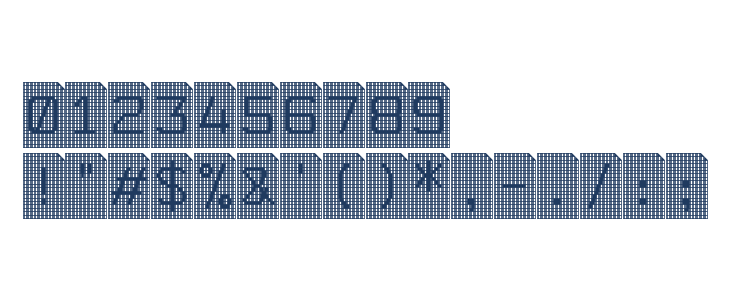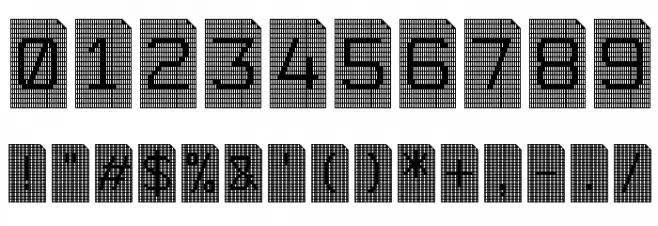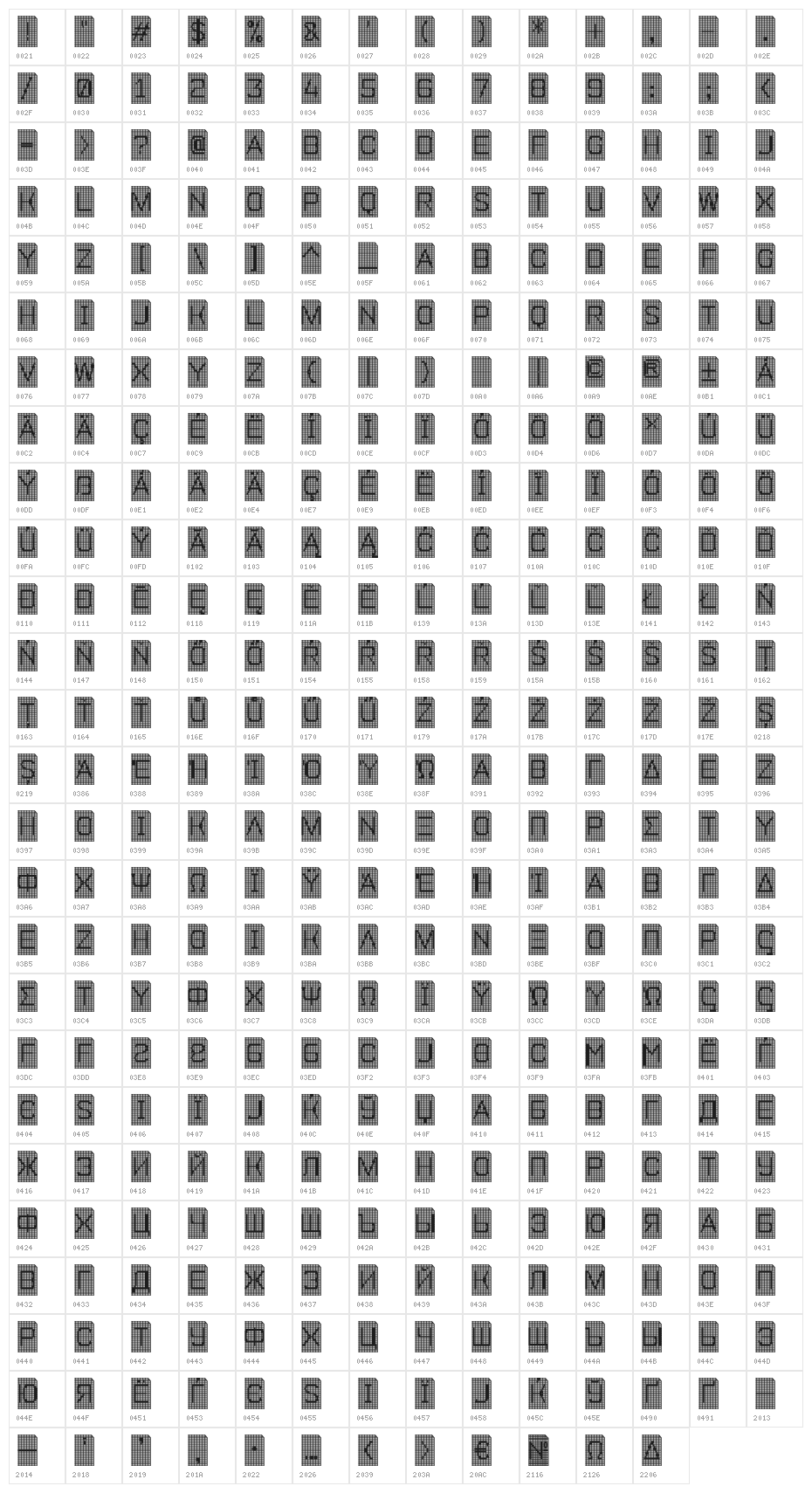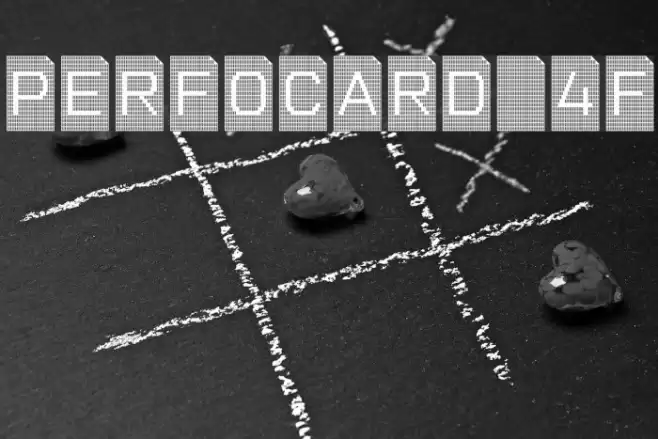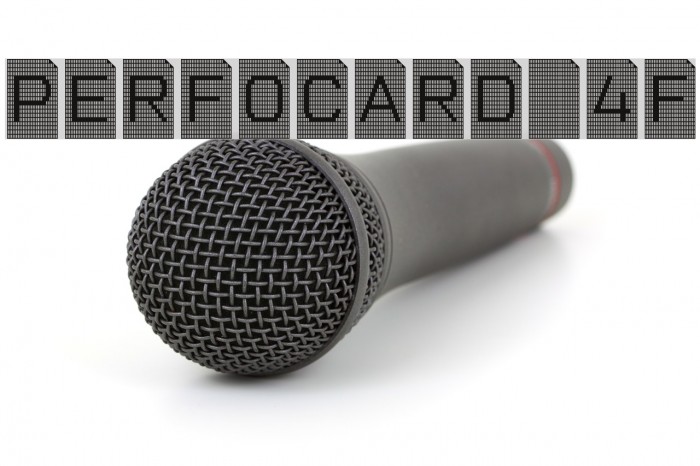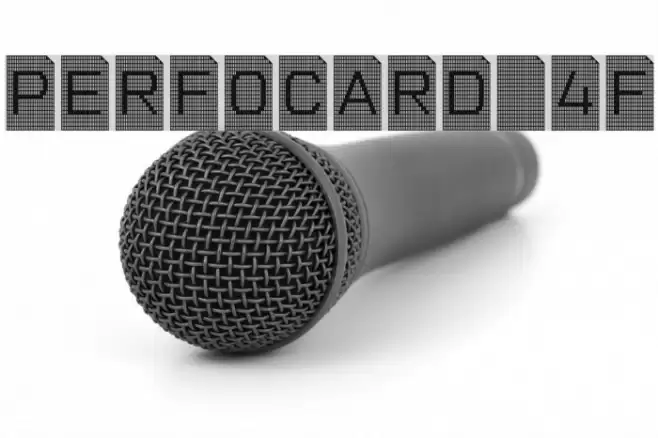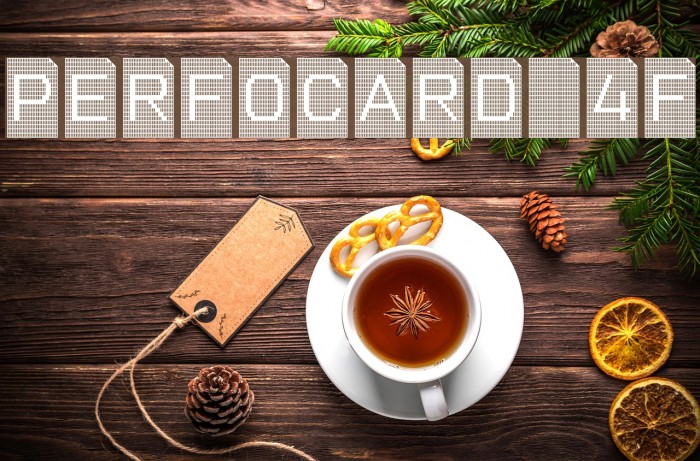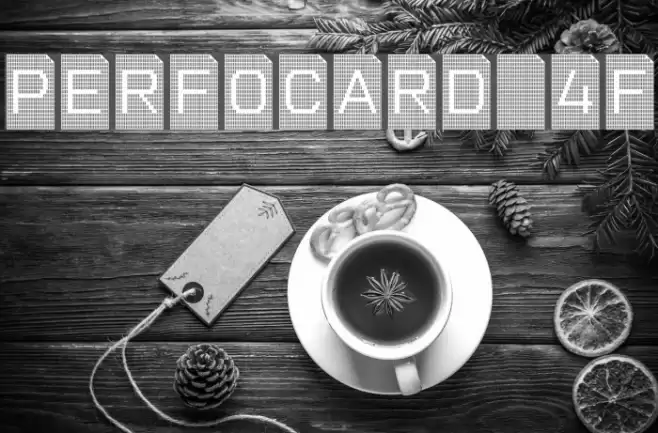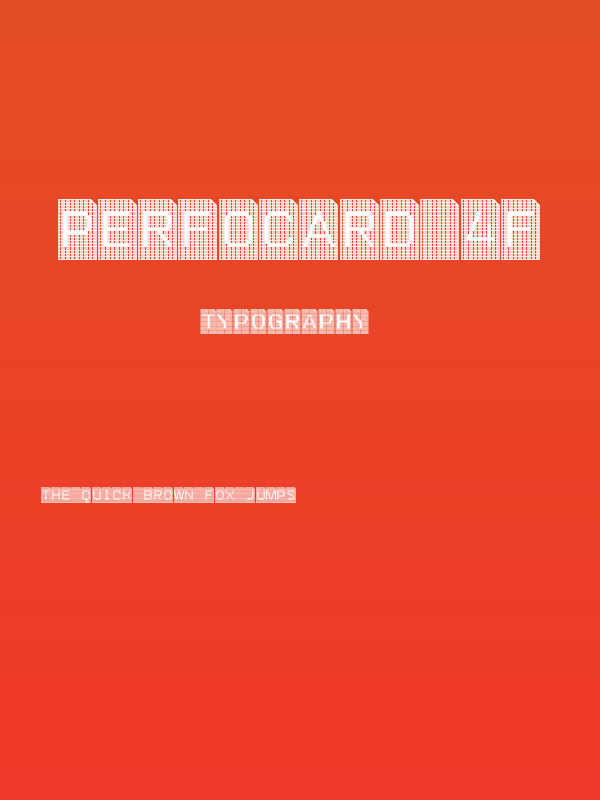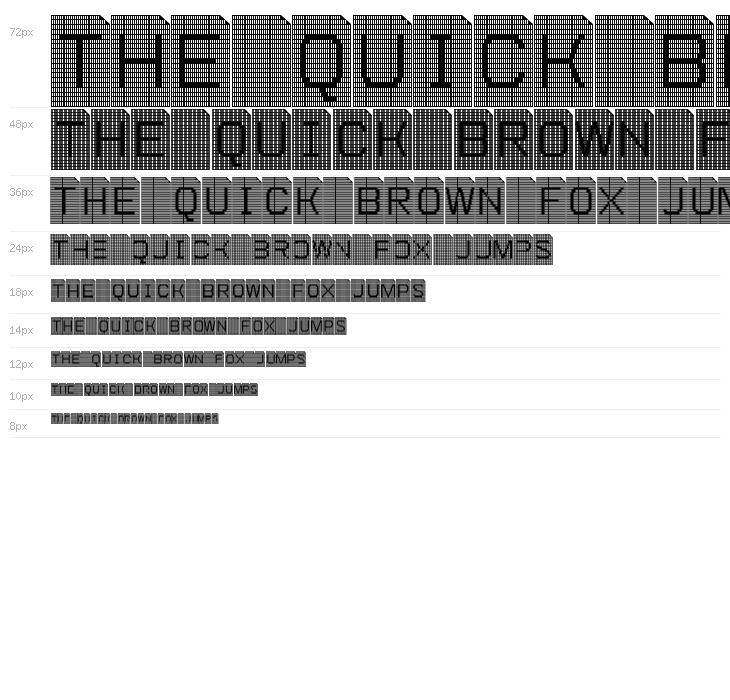
Perfocard 4F Font
Perfocard 4F Description
This font features a unique, grid-like pattern that gives each character a distinct, pixelated appearance. The letters and numbers are constructed from a series of dots arranged in a structured, geometric fashion, creating a three-dimensional effect. The design is reminiscent of early digital displays or punch cards, offering a retro-futuristic aesthetic. The characters are bold and highly legible, making them suitable for attention-grabbing designs. The font's structured layout and uniformity provide a sense of order and precision, ideal for projects that require a modern yet nostalgic touch.
| Overall Style | Retro-Futuristic |
| Proposed Projects | Ideal for digital art, retro-themed posters, video game graphics, and tech-related branding. |